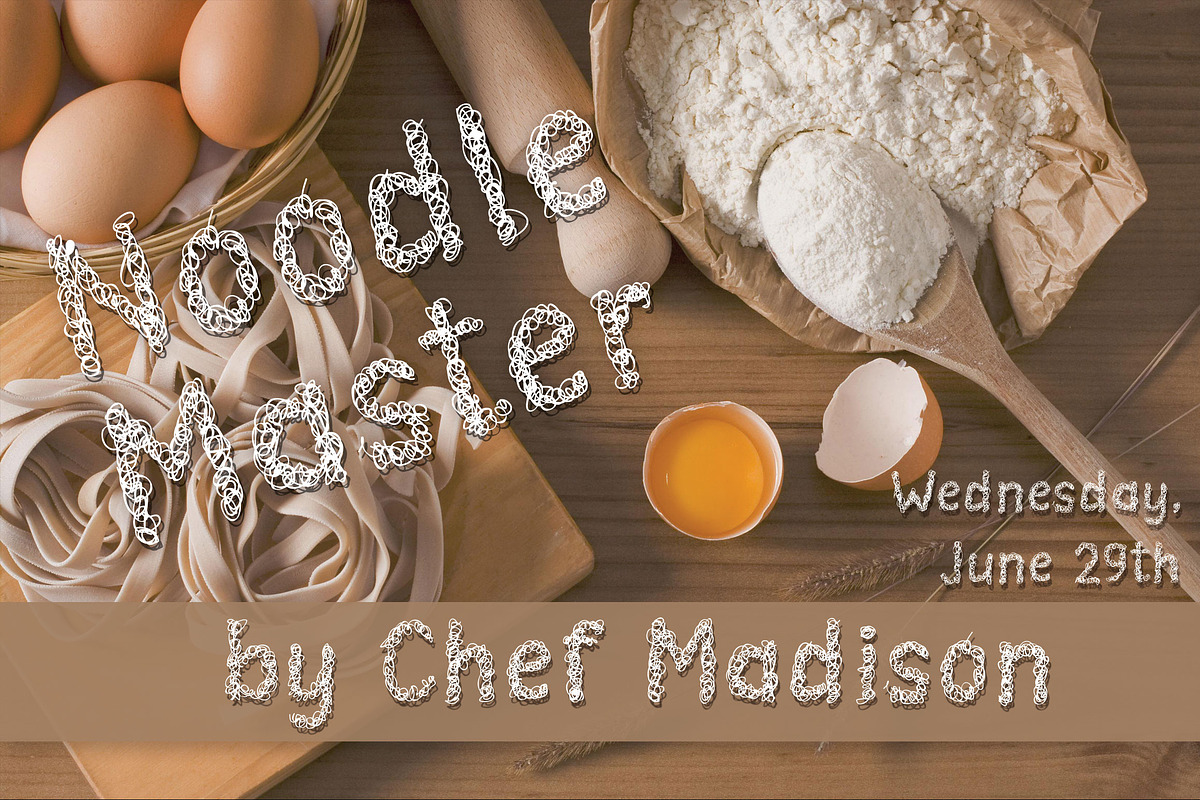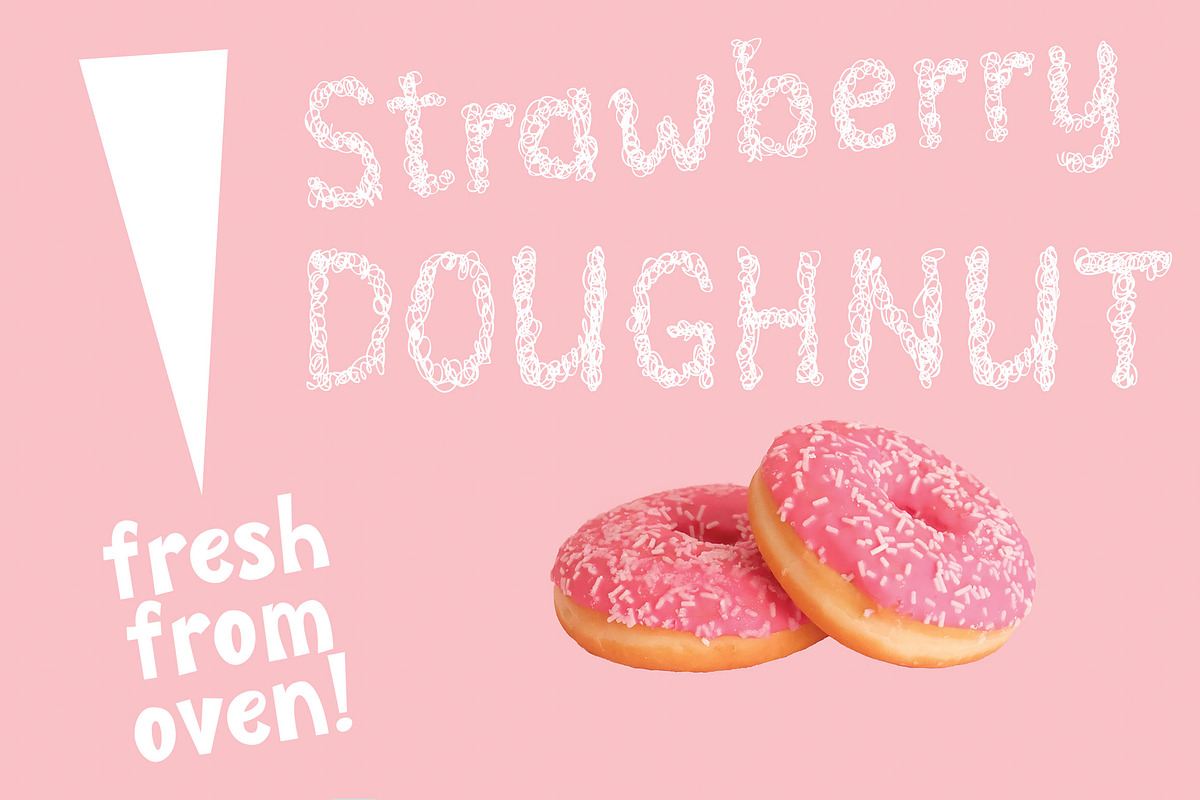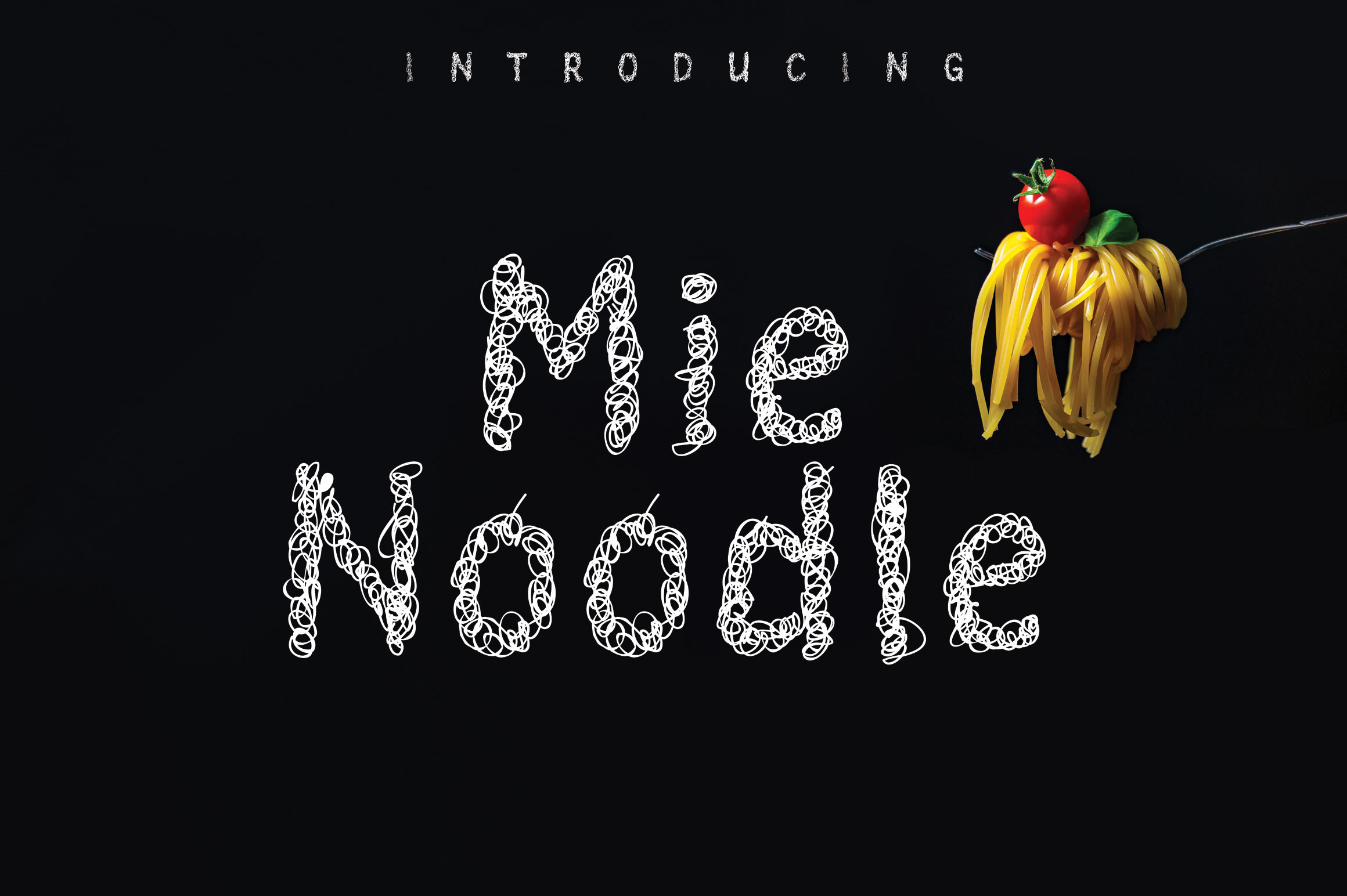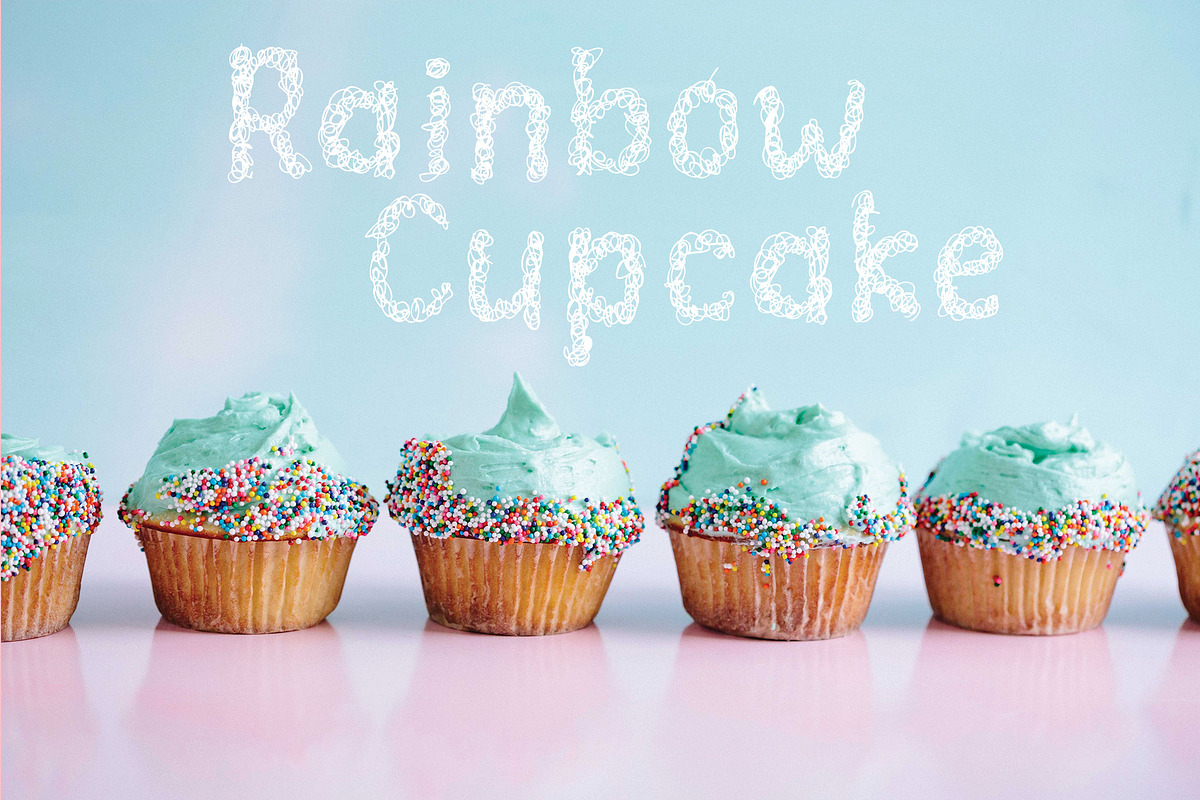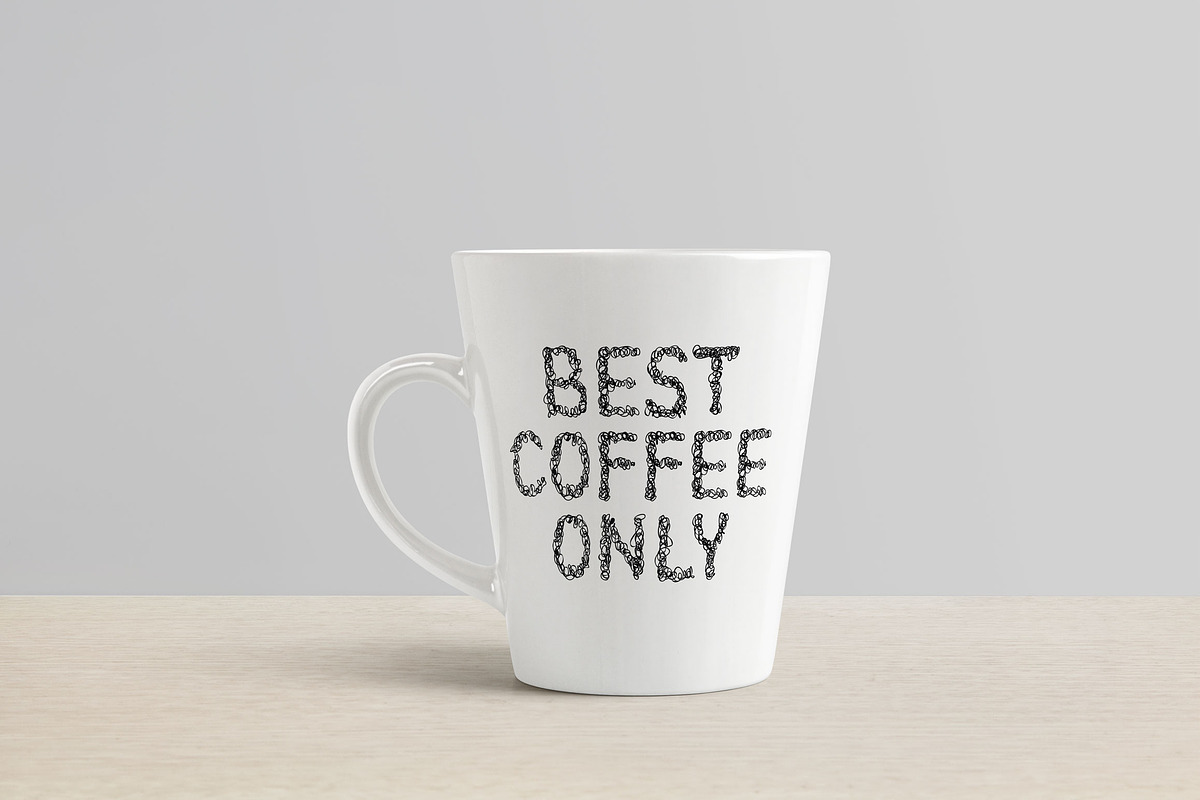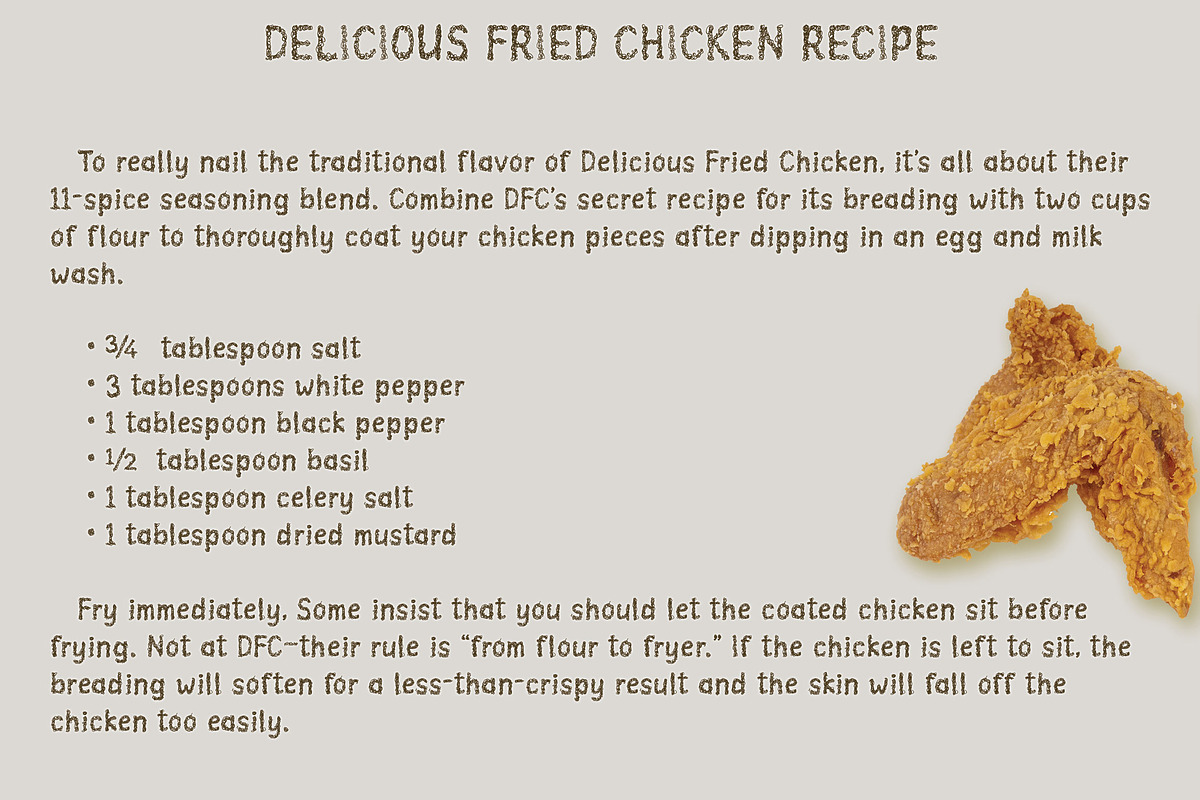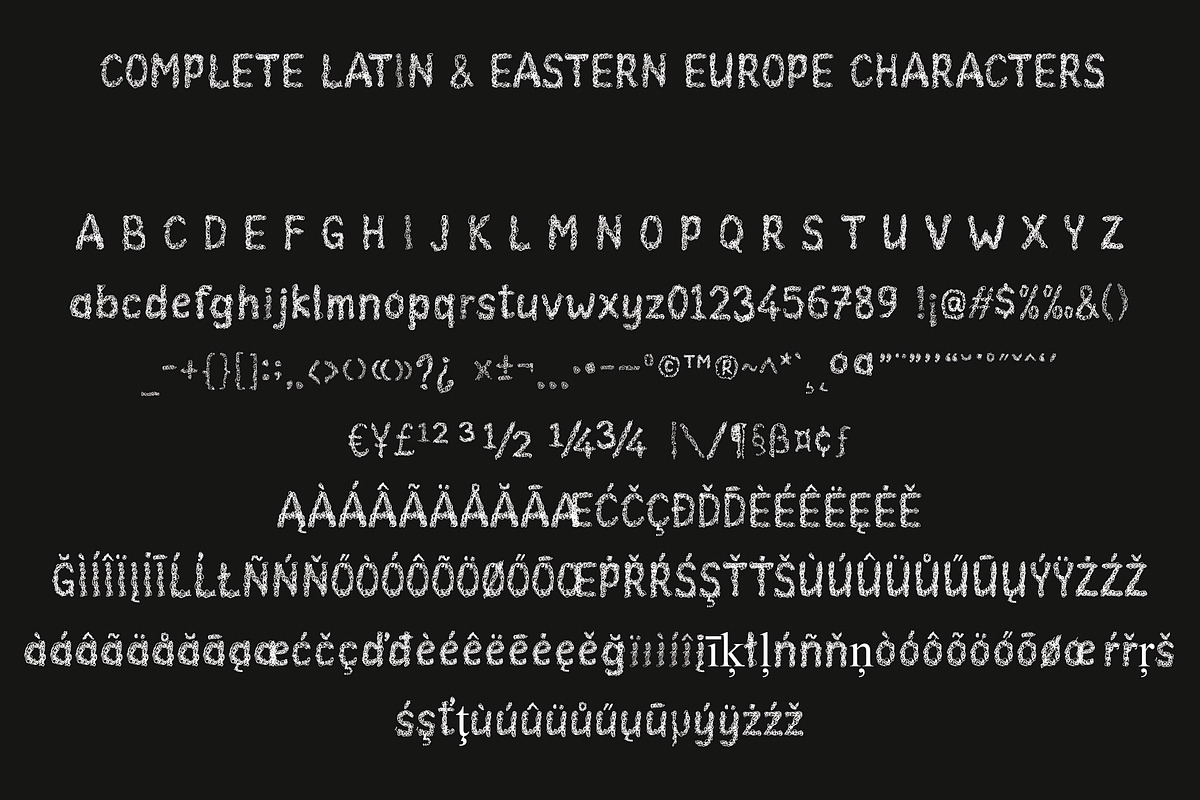
Mie Noodle | Noodle Like Font
Introducing a new unique style font, noodle like font! This font will nice for design about food with related to noodle. Nice for YouTube thumbnail, title, subtitle, books, magazine, flyer, etc.
This font contain 290 glyphs, supported to Latin, and Turkish characters.